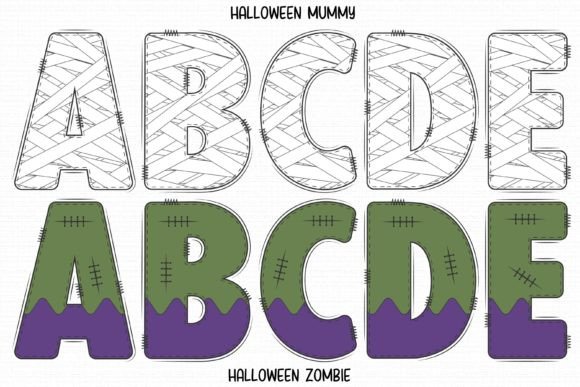
Introduction to Halloween Mummy Font Font
Fonts play a crucial role in design, and the Halloween Mummy Font font is a typeface that brings both character and versatility to any project. Whether you’re working on a branding project, a website, or a print design, the Halloween Mummy Font font offers a unique style that can elevate your work.
| π€ Author | Doodle Alphabet |
Halloween Mummy is a cute and fun Halloween-styled detailed colored font.
It can be used in Halloween, horror, or cute work, itβs incredibly perfect Add it to your creative ideas, and notice how it makes them stand out.
Key Features of Halloween Mummy Font Font
Why Choose Halloween Mummy Font Font?
The Halloween Mummy Font font is more than just a typeface β it’s a design tool that helps you communicate your message with style and clarity. Its unique character set and versatile design make it suitable for a wide range of applications, from elegant invitations to bold headlines.
With its carefully crafted letterforms and balanced proportions, the Halloween Mummy Font font ensures readability and visual appeal across all mediums.
What makes Halloween Mummy Font font special?
The Halloween Mummy Font font stands out with its unique design, exceptional readability, and versatility across various design applications.